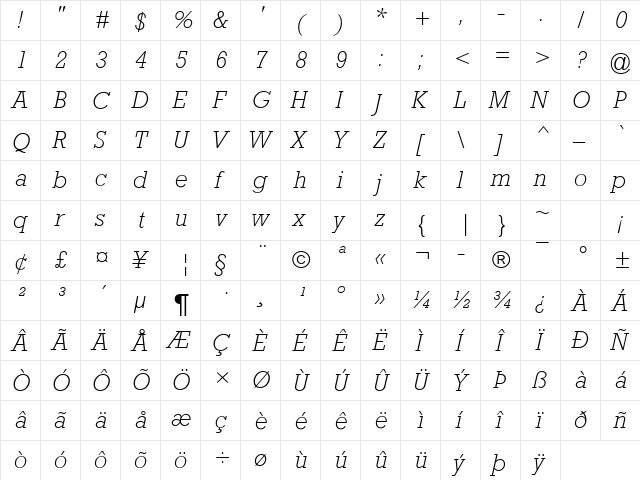
Rockwell MT Light Italic Font Preview
Design Context for Rockwell MT Light Typeface
Rockwell MT Light is a composed and adaptable typeface that performs quietly and consistently across a wide range of design contexts. The dynamic lean of this cut emphasises speed and emphasis in any layout. Its slender proportions lend an understated elegance to any composition.
Pro Tip: Try Rockwell MT Light for annotation and caption copy alongside an upright companion — the contrast in angle creates a dynamic but ordered typographic system.